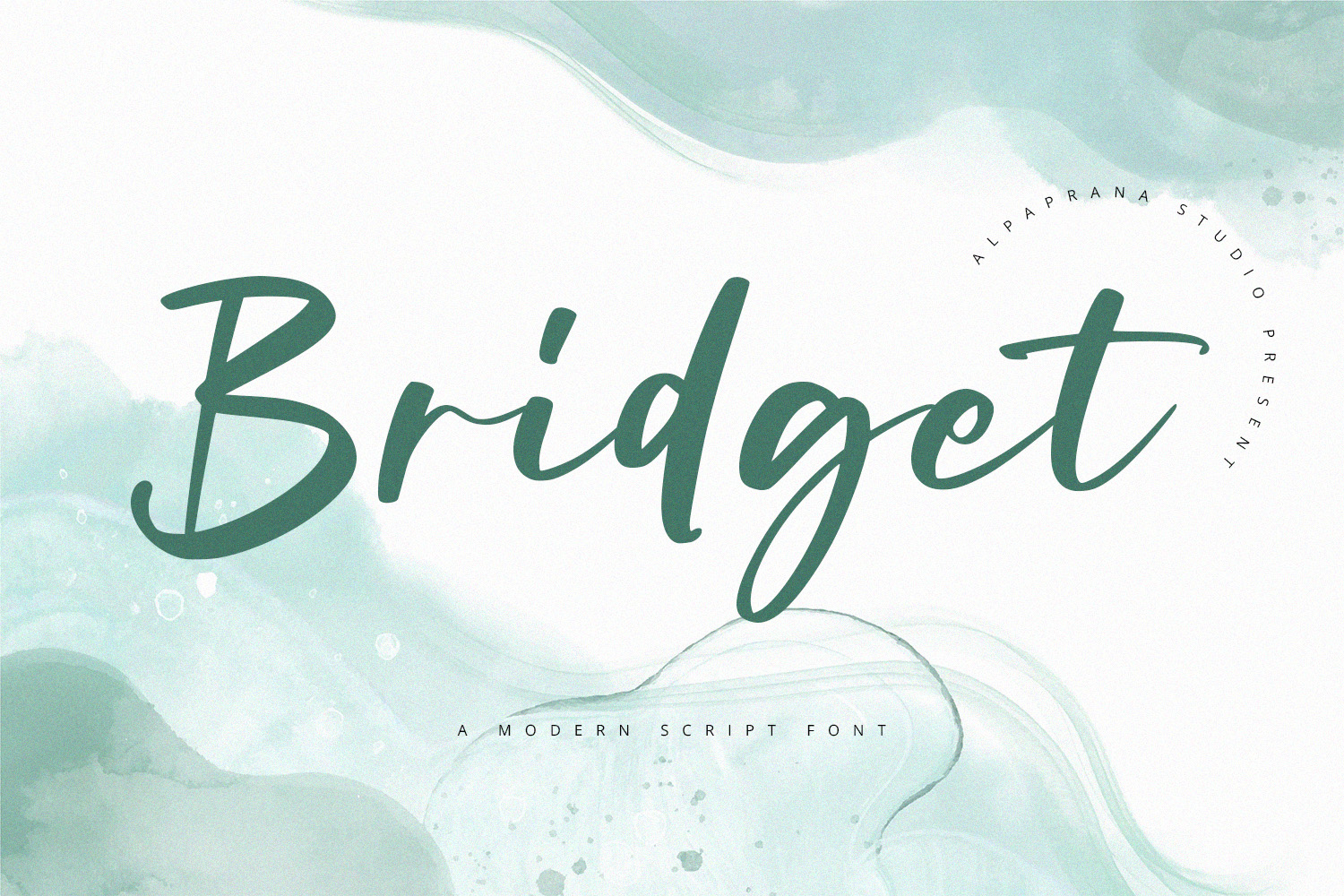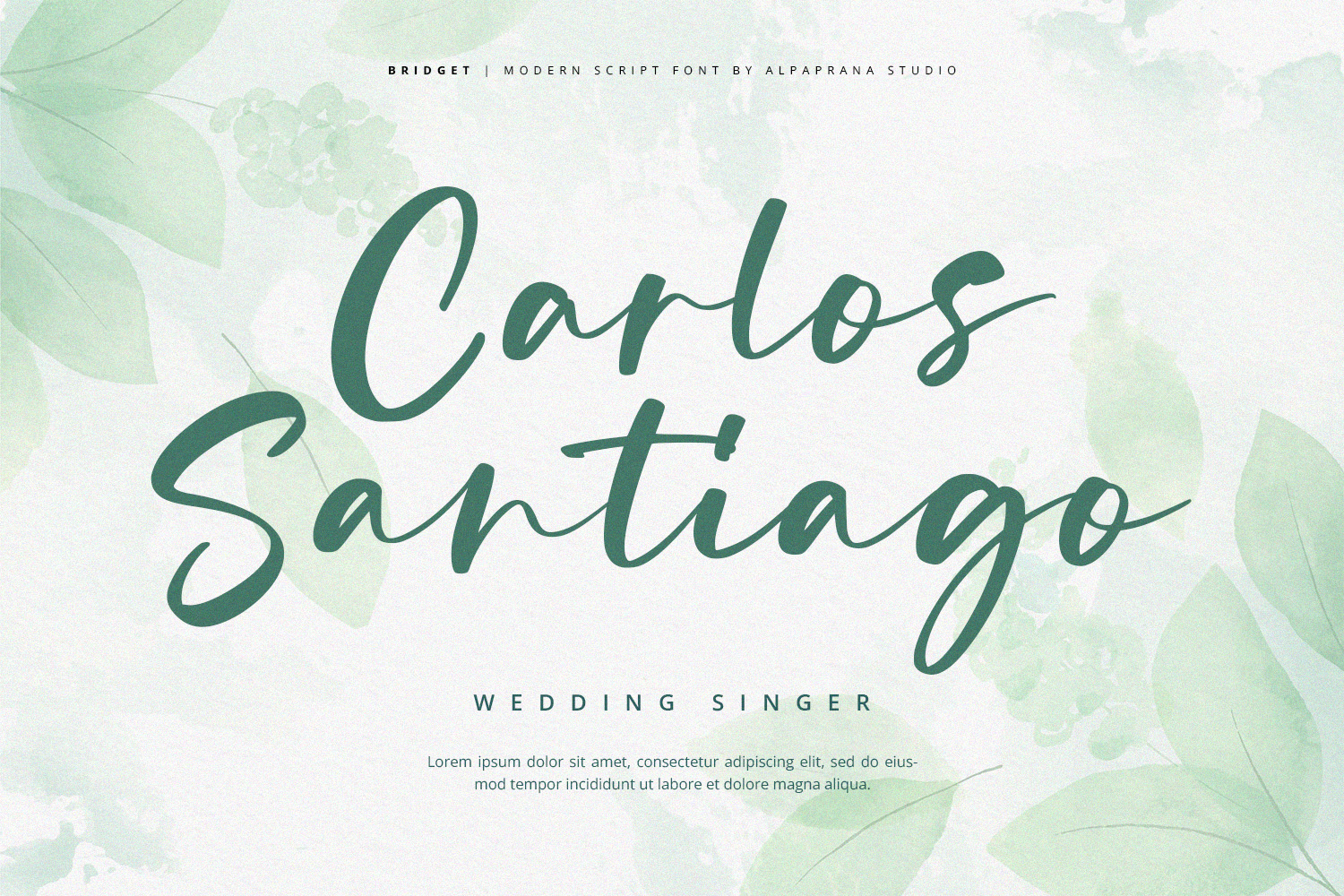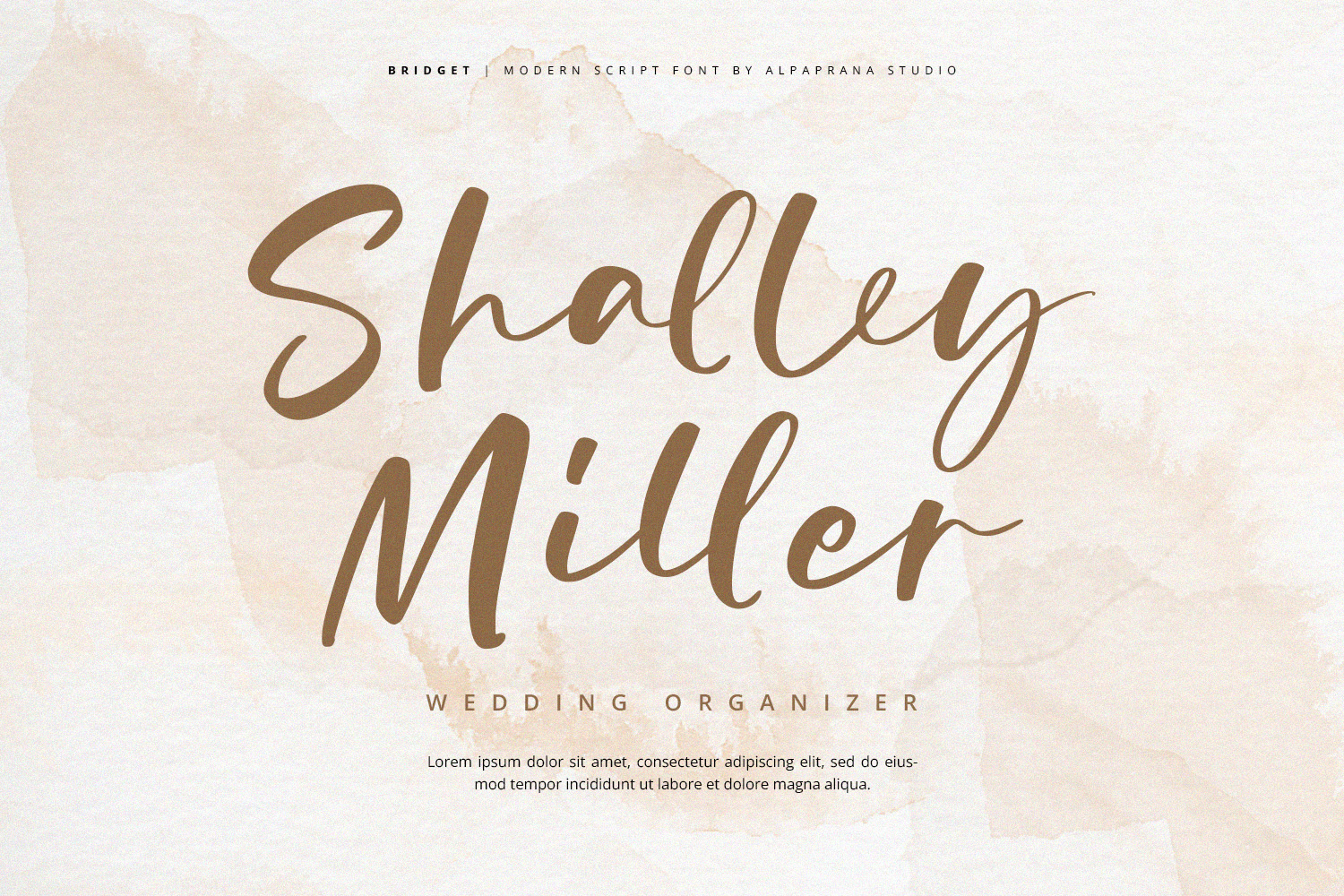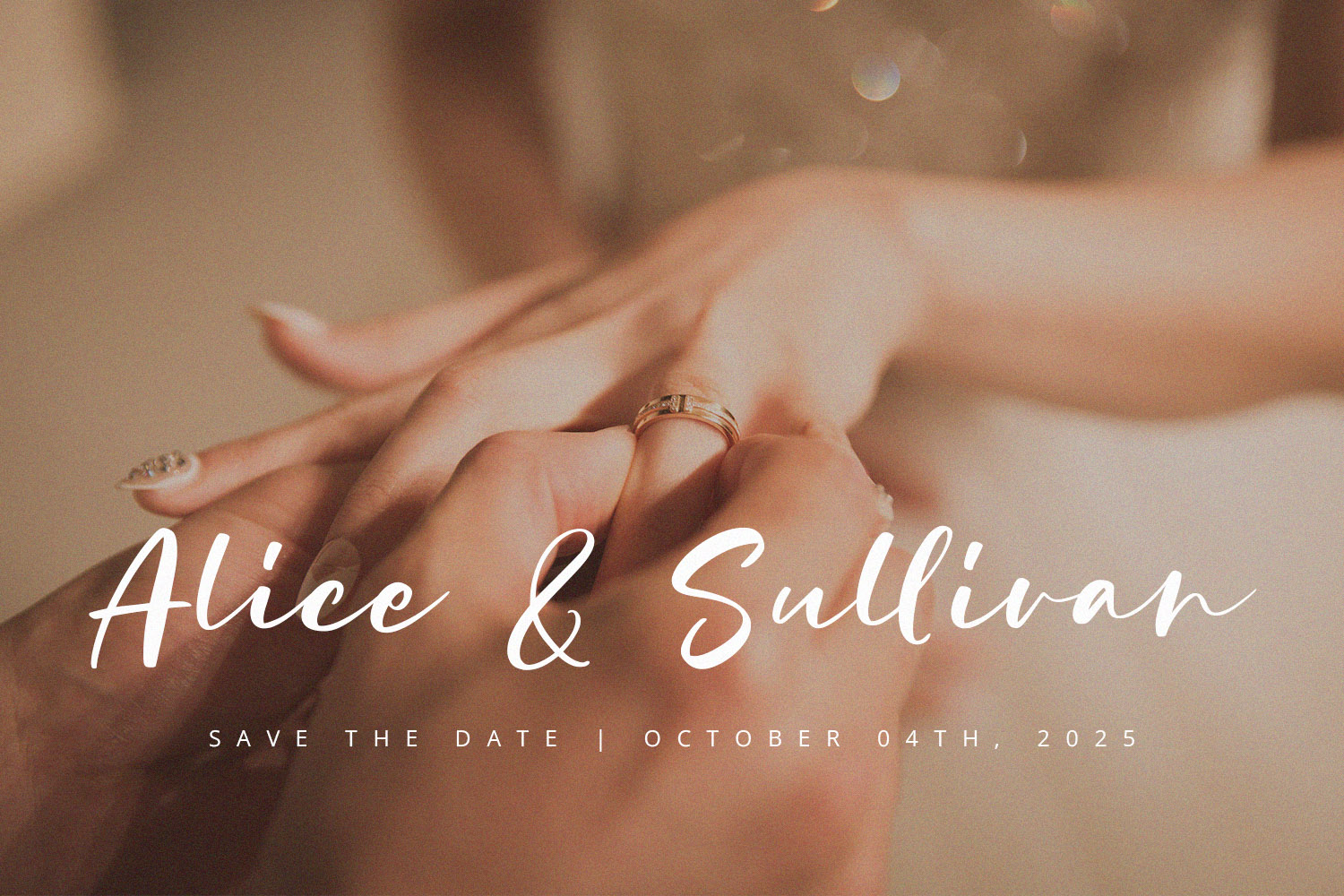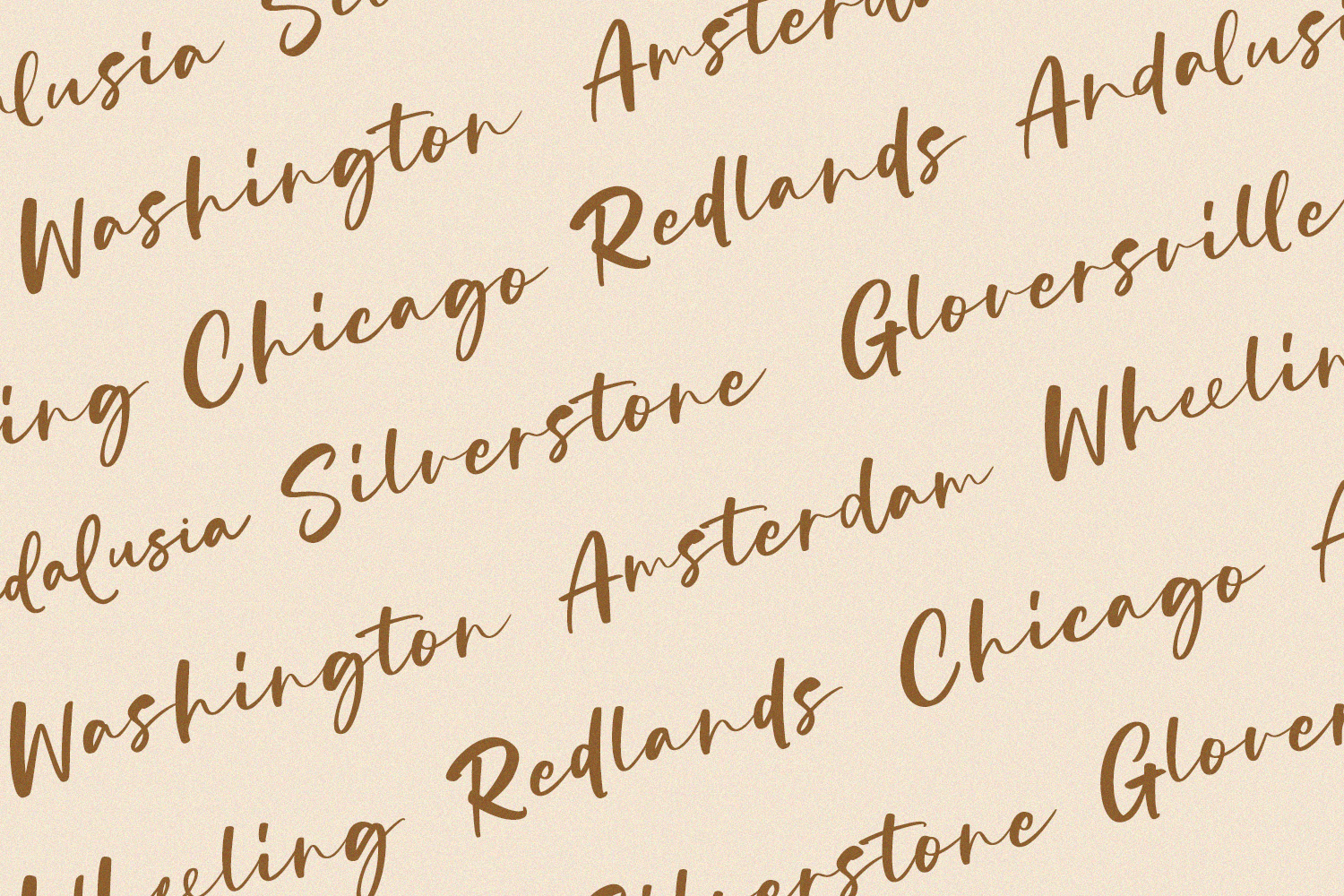
Bridget Free Font
Bridget Free Font is a unique and stylish font that exudes a sense of creativity and innovation. The font has a sleek and contemporary script style that creates a sense of modernity and freshness, making it perfect for designing social media graphics, posters, or any project that requires a touch of innovation. The font’s sharp edges and clean lines give it a unique and modern feel, making it ideal for creating a sense of modernity. It’s a font that can be used for anything from a trendy t-shirt design to a business card, it will add a touch of modernity and originality to any project.